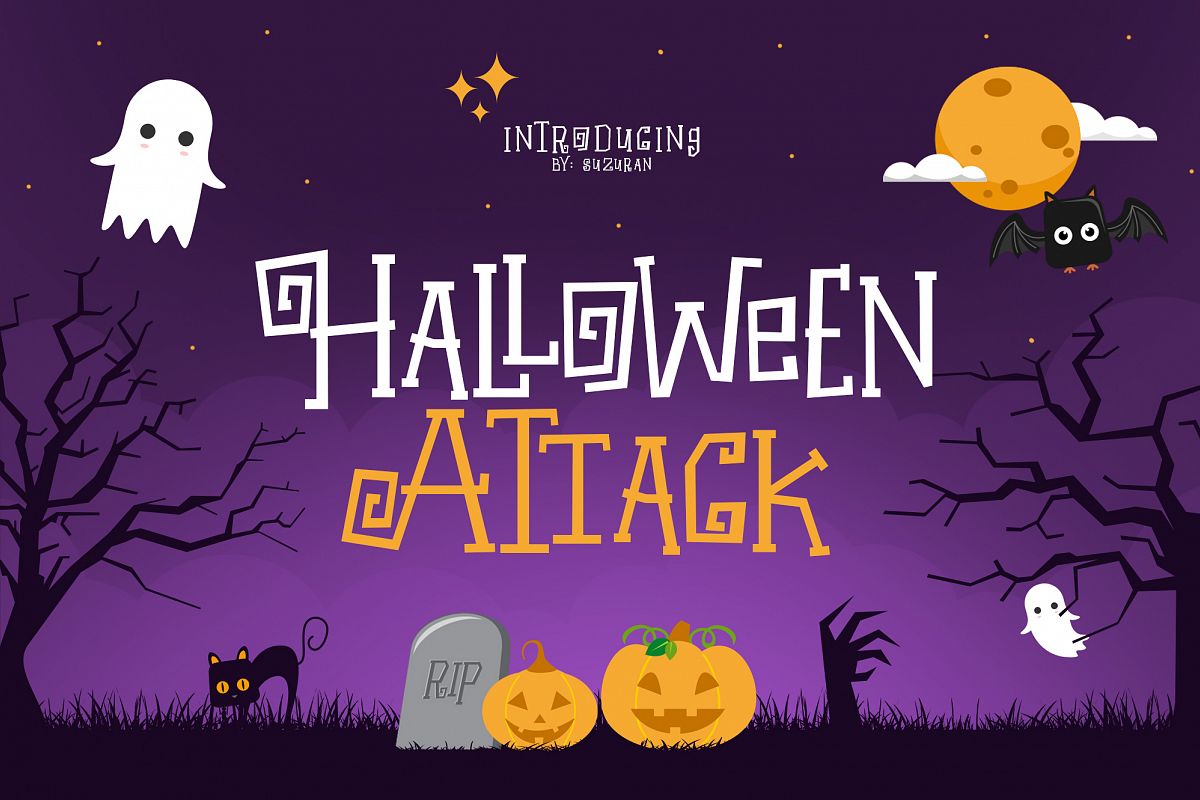
Halloween Attack
Halloween Attack Display font with halloween theme for your fun project. Halloween Attack Display font suitable for logo, branding, greeting card, branding, poster and any design that you create.Files included: